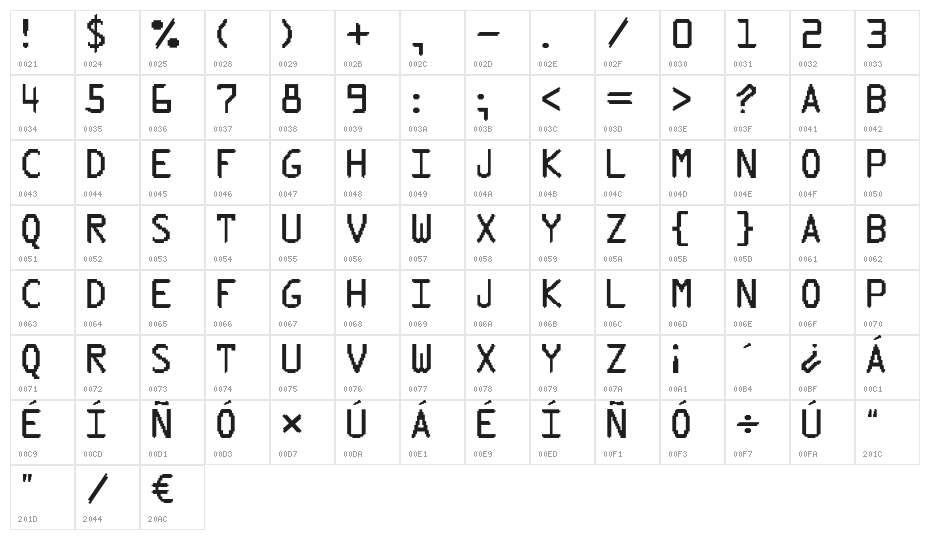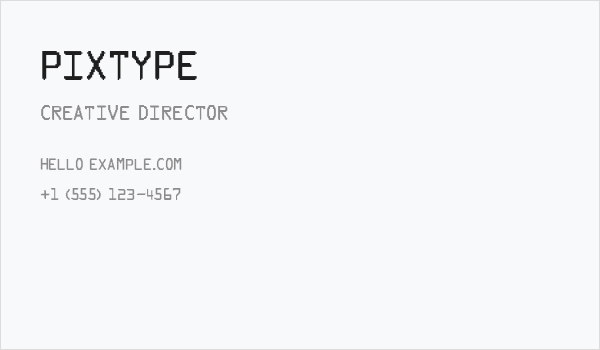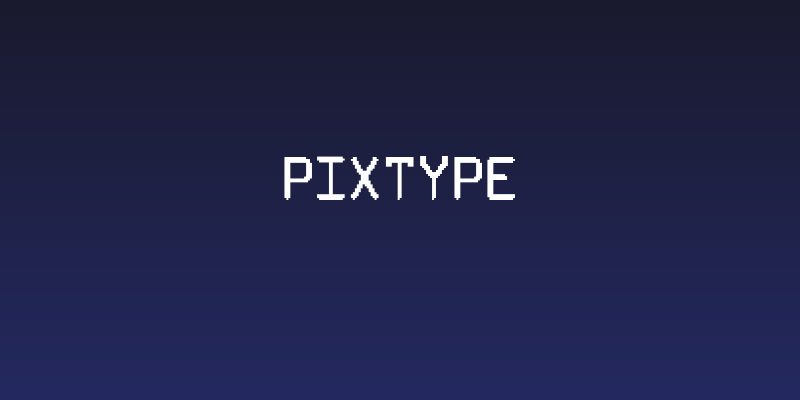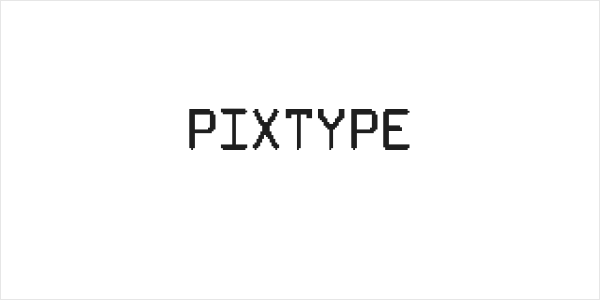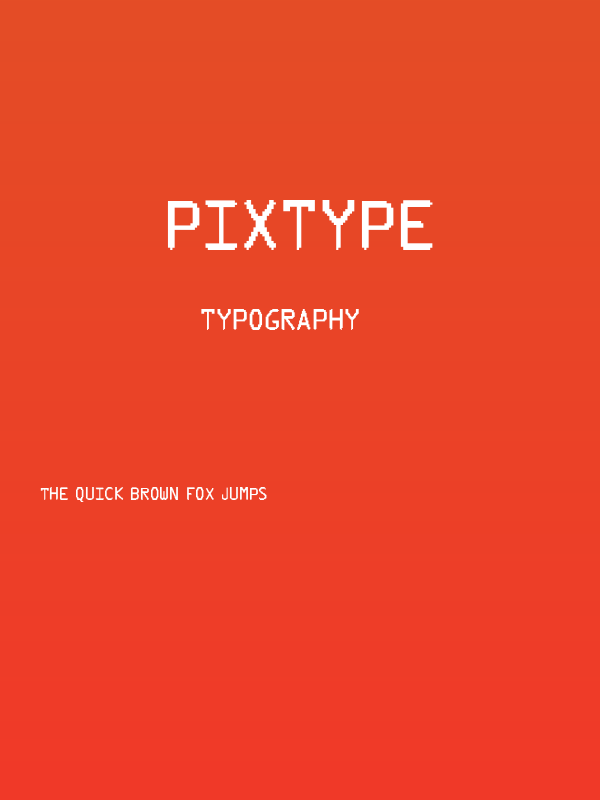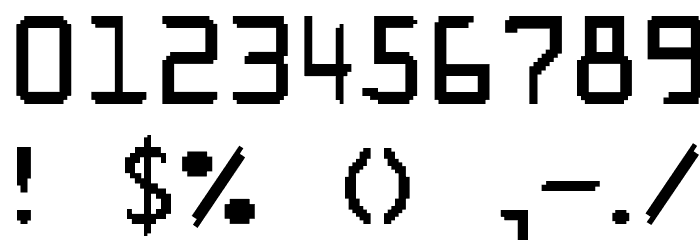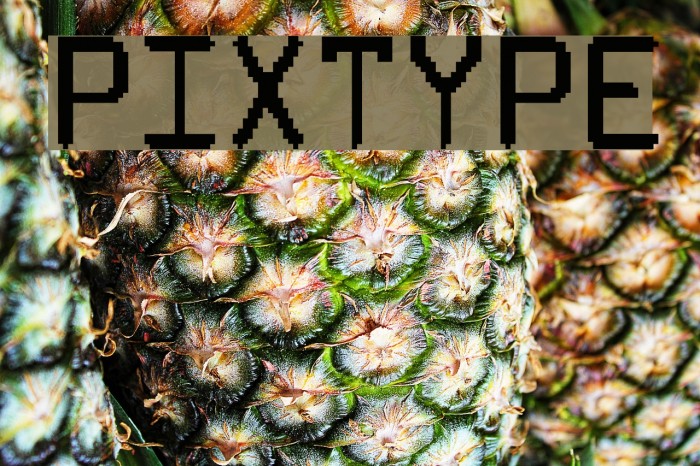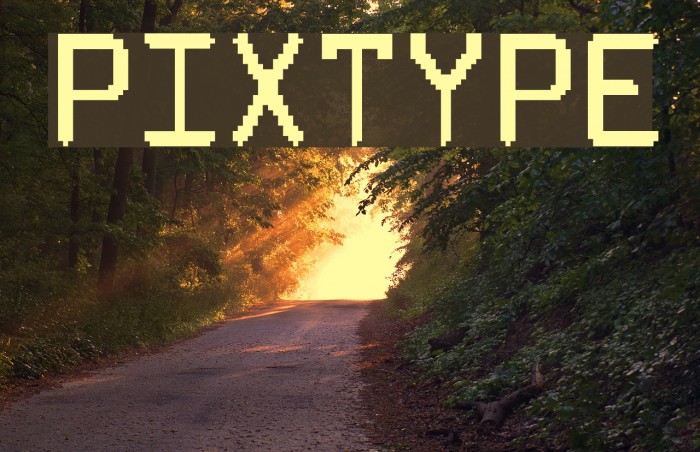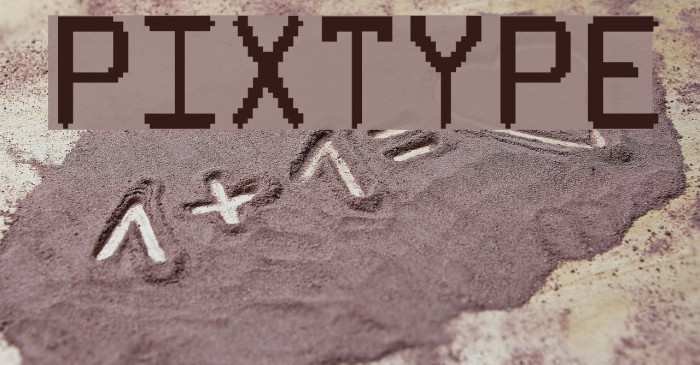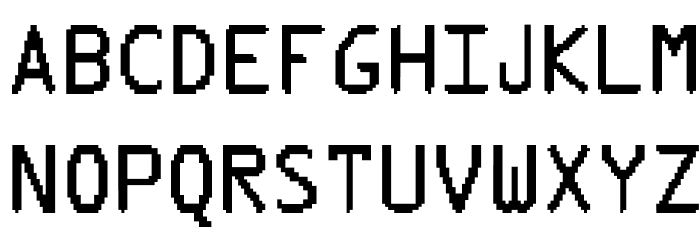
PixType Font
PixType Description
This font exhibits a pixelated, digital style reminiscent of early computer graphics and video games. The characters are constructed with a blocky, grid-like appearance, giving it a retro and technological feel. Each letter and number is composed of sharp, angular lines, maintaining uniformity across the character set. The uppercase and lowercase letters share a consistent height, enhancing its monospaced nature. The font's geometric structure makes it highly legible at small sizes, ideal for digital displays. Special characters and punctuation are designed with the same pixelated aesthetic, ensuring a cohesive look throughout.
PIXTYPE UPPERCASE
PIXTYPE LOWERCASE
PIXTYPE OTHER CHARS
| Overall Style | Retro |
| Use Case | Digital displays, Video games, Tech branding |
| Proposed Projects | Ideal for video game design, digital art projects, retro-themed websites, and tech-related branding. |